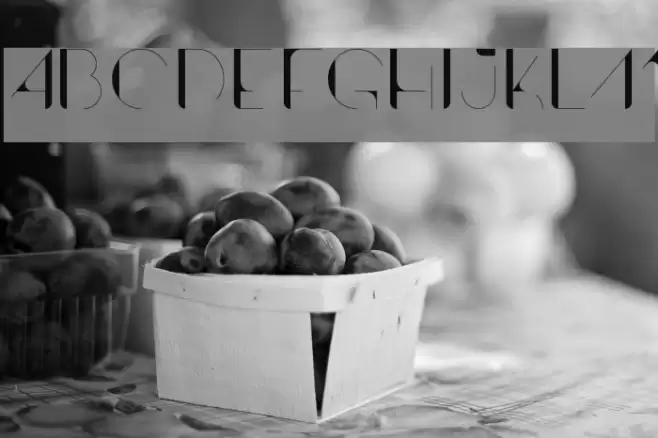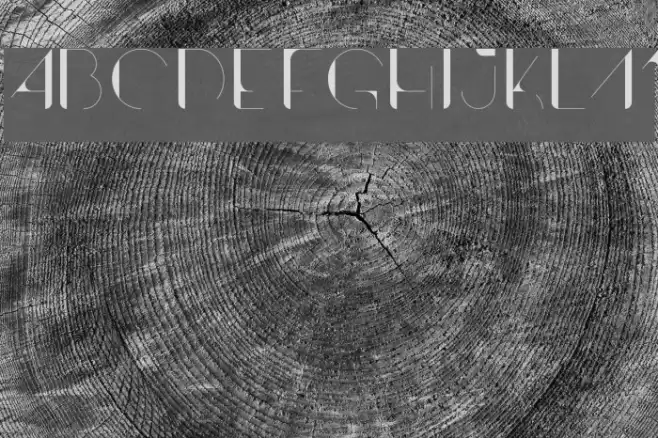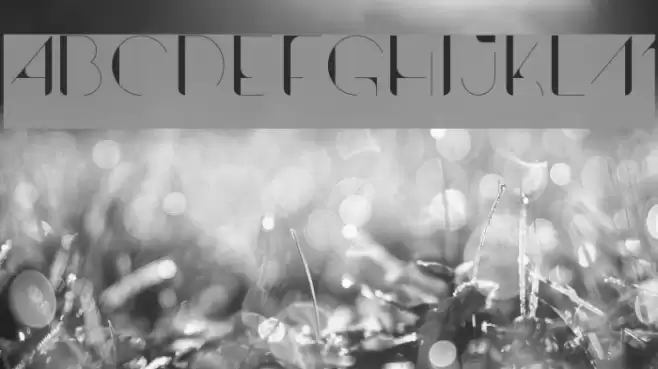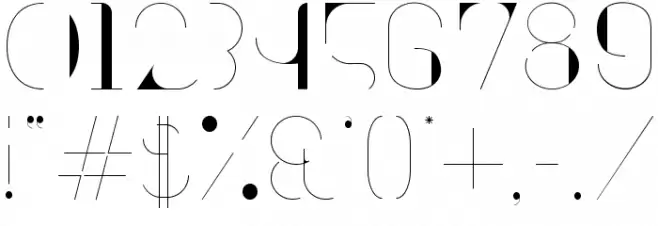
Contrasto Font
Contrasto Description
This font features a modern and artistic design with a high contrast between thick and thin strokes. The characters are uniquely styled with geometric elements and sharp angles, creating a futuristic and avant-garde appearance. The uppercase letters are particularly striking, with some characters partially open or incomplete, adding to the abstract aesthetic. The numerals and special characters maintain this distinct style, ensuring consistency throughout the typeface. This font is ideal for creative projects that require a bold statement.
A modern, high-contrast font with geometric and abstract elements from Uncategorized fonts.
- Proposed Projects: Ideal for branding, posters, album covers, and editorial design where a modern and artistic touch is desired.